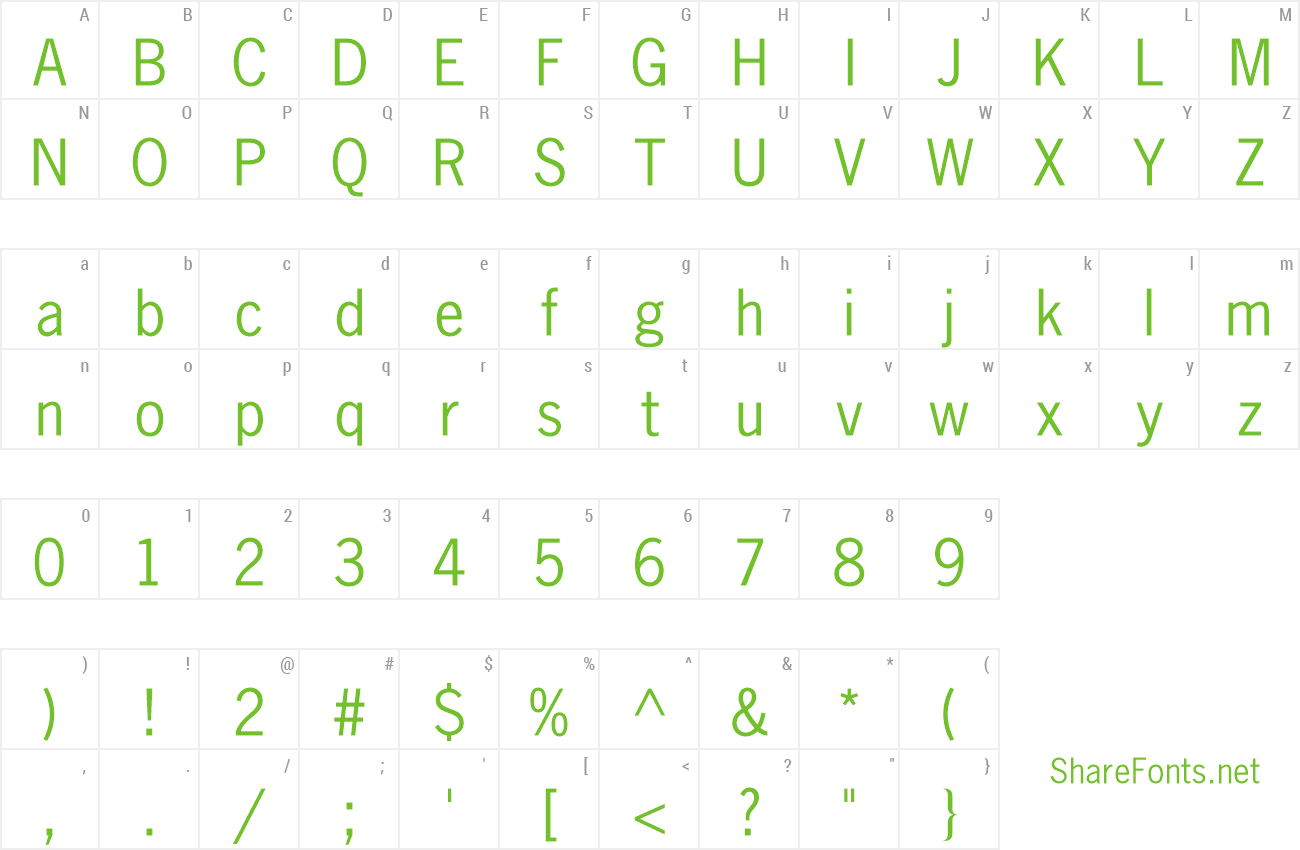
News Gothic Font
News Gothic Font - A sans serif typeface with 4 styles, available from. Web explore news gothic designed by morris fuller benton at adobe fonts.
A sans serif typeface with 4 styles, available from.